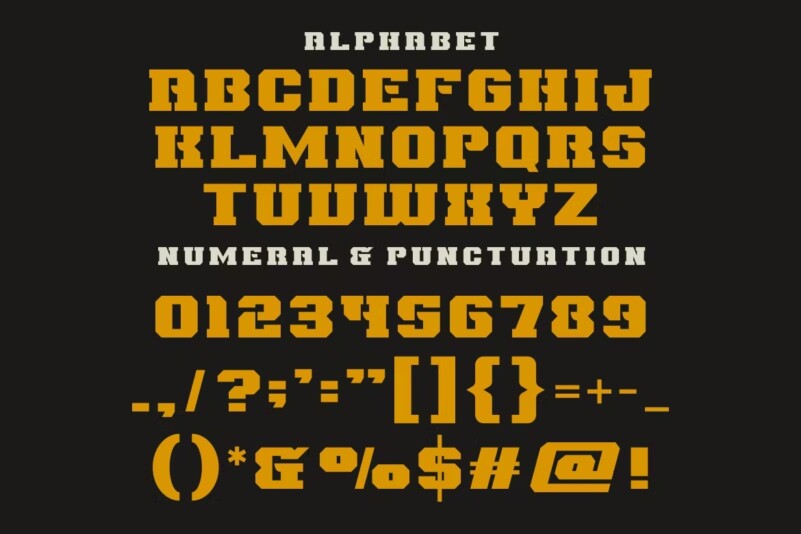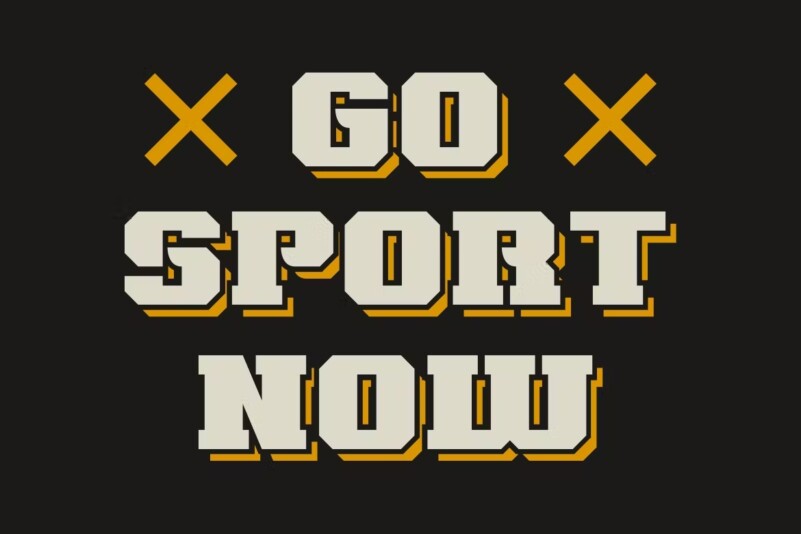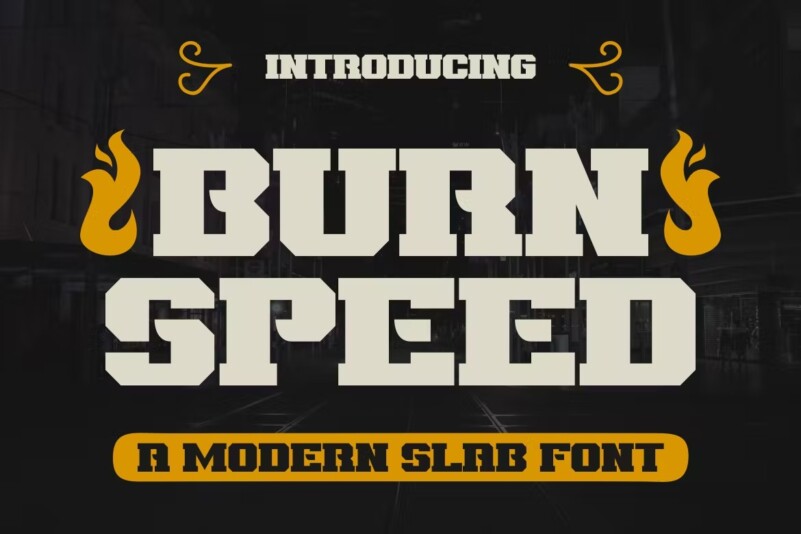
BURN SPEED – A Modern Slab Font
Introducing our new product BURN SPEED Font – Modern Font BURN SPEED** – Modern Font is a bold and authentic display font. The font is suitable for any branding project such as logo, t-shirt print, product and many more. She stands out in a wide range of contexts.